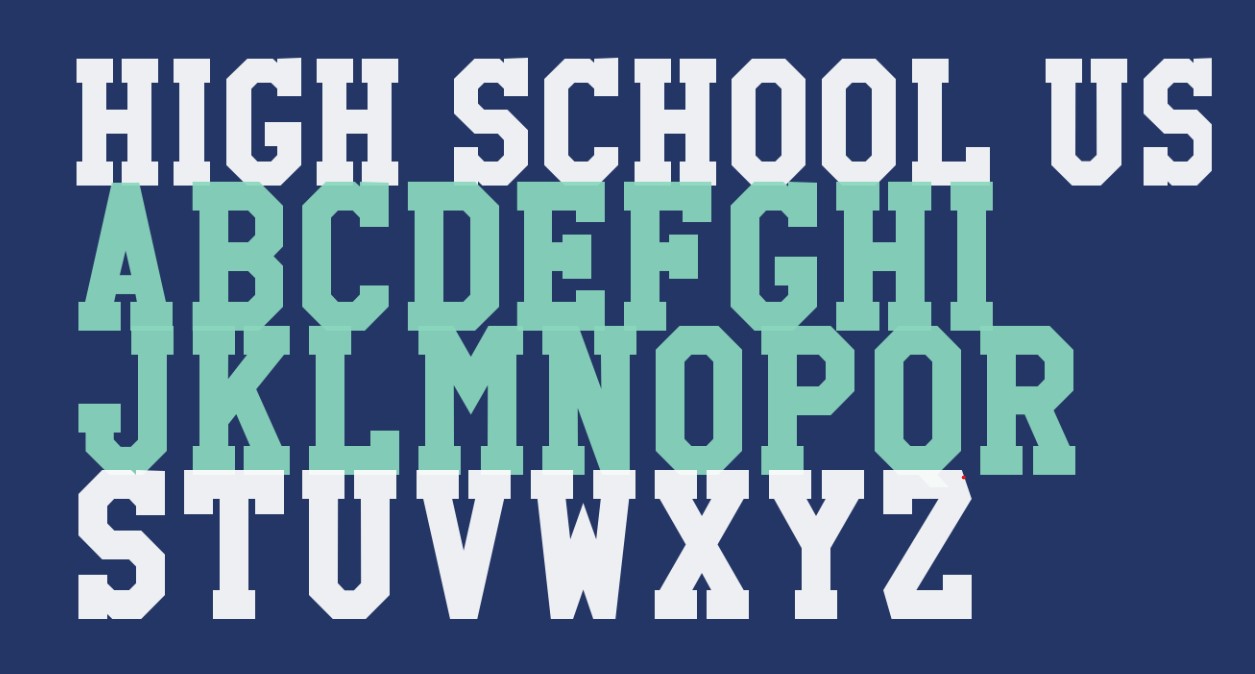
High School Usa Font
High School USA Font is the widely used typeface in MEME. This is similar to the Freshman and college font and it is also present inside Google Fonts. The content material author creates this font has taken the concept from the luckiest guy font in addition, that new typeface has located on the font. Normal with many expert designers, it is giving a pinnacle-notch like-minded search for precise operations.
In this conduct, it’s far going to reveal one of the maximum particular typefaces. High School Usa Font Free This exquisite pinnacle-notch font has are to be had in a common variation on the element of some of the characters. Having the paper layout like audrey font it has to characteristic the uppercase, punctuation marks. The font tasteful typeface may be one of the important top-notch alternatives you could have ever made due to the truth that many designers are already the usage of it for there a diffusion of portraying’s abilities.